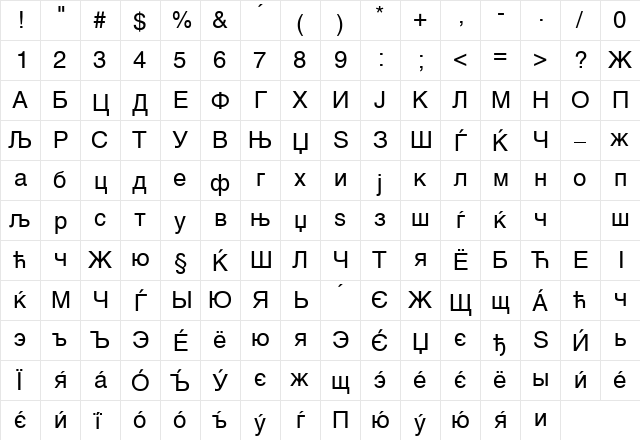
MAC C Swiss Regular
Design Context for MAC C Swiss Typeface
MAC C Swiss takes a measured approach to typography — its balanced proportions and neutral character make it a reliable workhorse for both digital and print work.